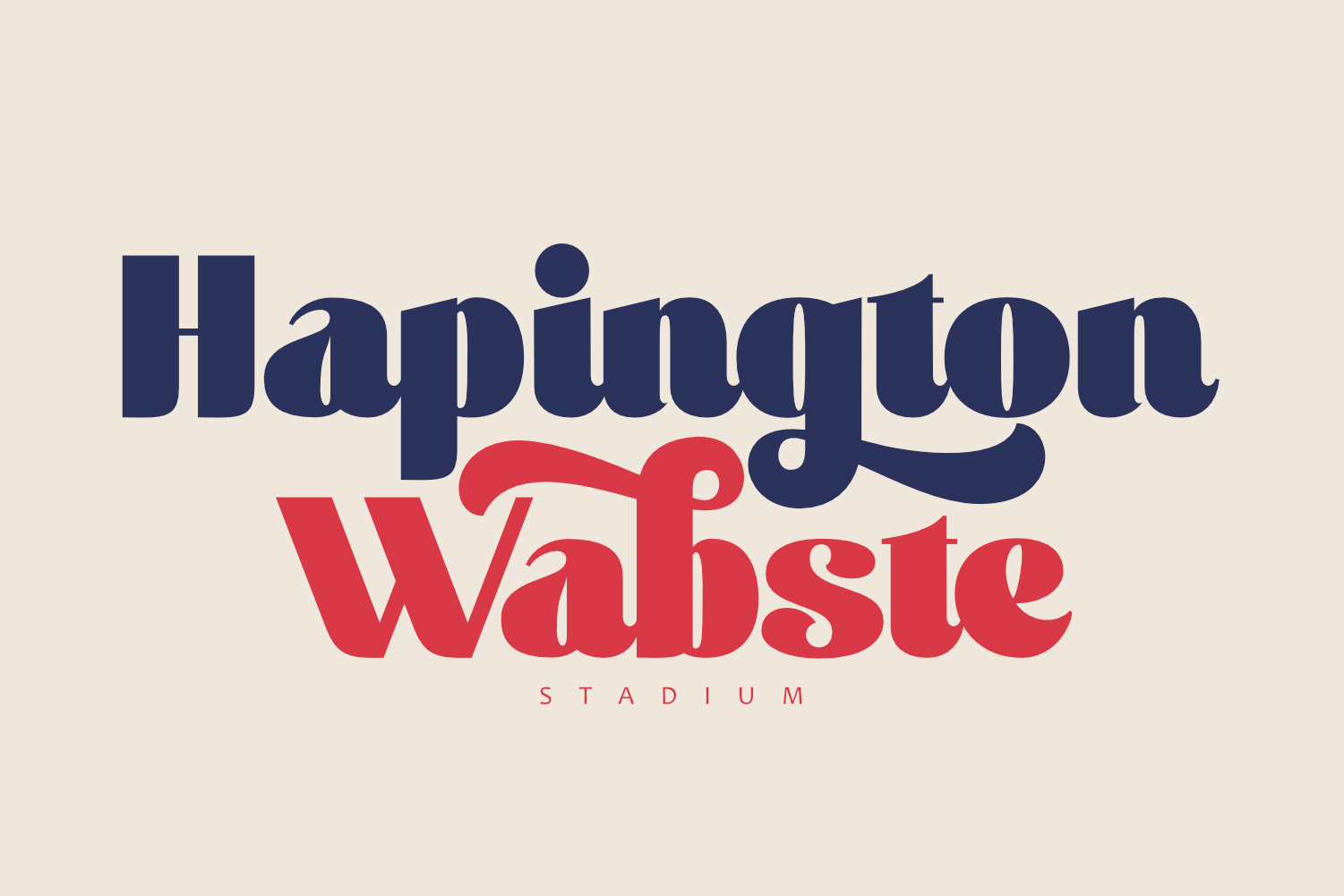
Carafia - Sans Serif Font
Carafia is a bold sans serif font. It has its own uniqueness in its small, bound letters, Supported by several alternative and ligature fonts that make it cute, unique, suitable for all types of projects such as branding, logo design, cover design, web design, packaging, social media, and many more what are you waiting for!